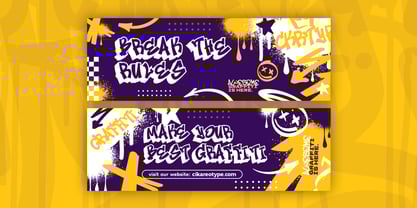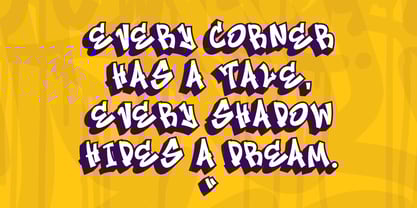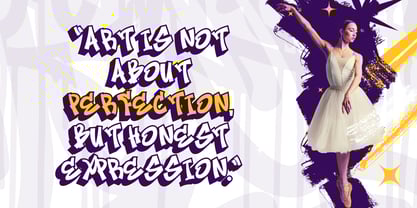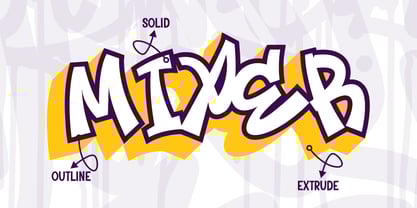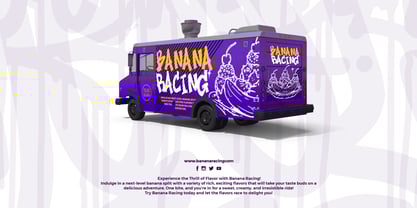
Edge Bolt Outline
by Sipanji21
The Edge Bolt Outline Font Family was designed by Sipanji and published by Sipanji21. Edge Bolt Outline contains 3 styles and family package options. More about this family
Edge Bolt is a bold and dynamic 3D layered graffiti font featuring sharp and thin characters that bring an electrifying street-style aesthetic to your designs. This font comes with three distinct layersSolid, Outline, and Extrude—allowing you to create eye-catching depth and dimension effortlessly. Whether you're designing for streetwear branding, posters, digital artwork, or urban-themed projects, Edge Bolt delivers a striking and edgy look. With its layered versatility, this font makes it easy to mix and match styles for a unique, high-impact visual experience.